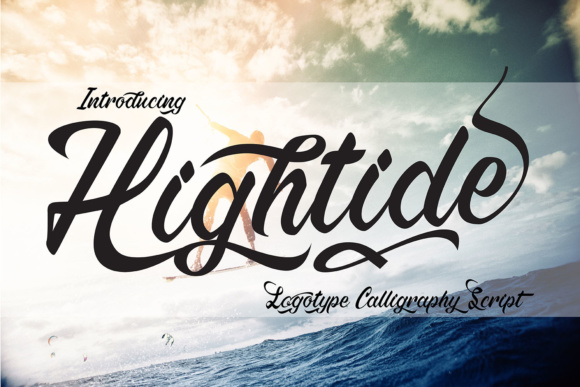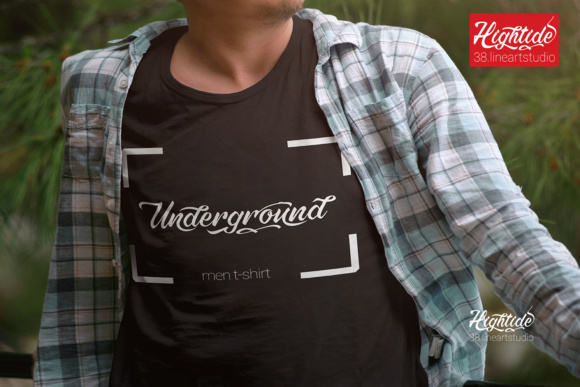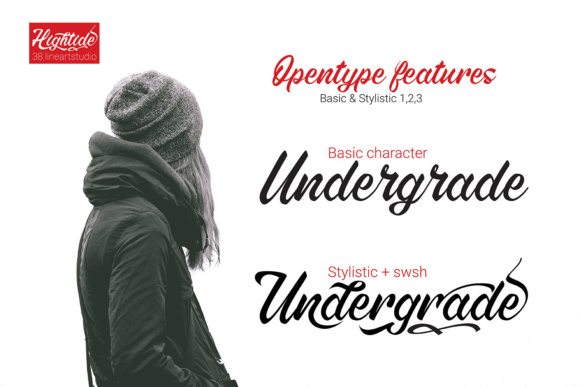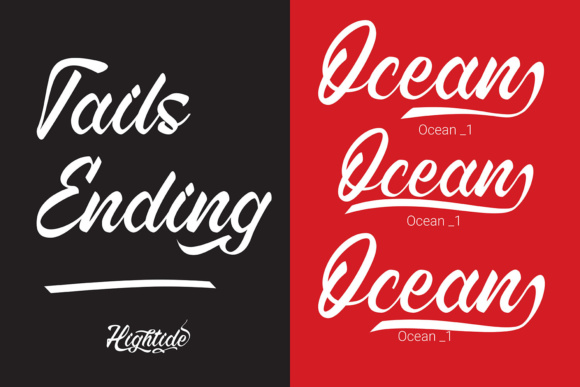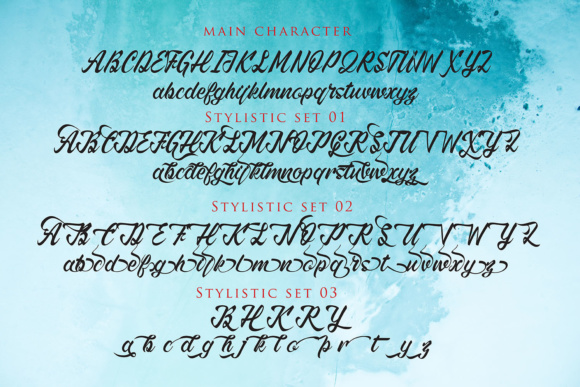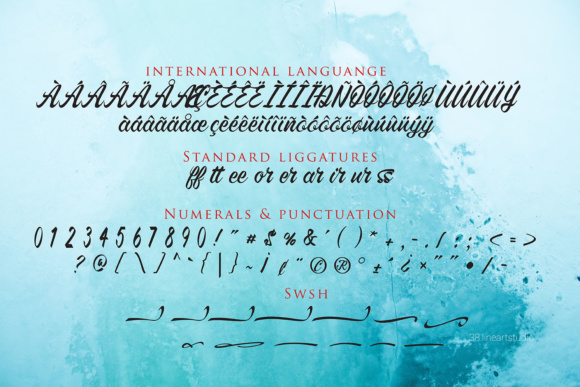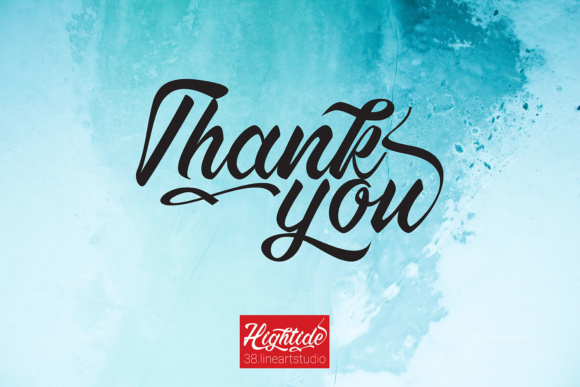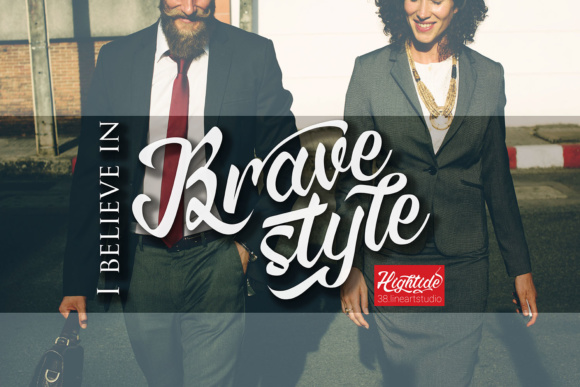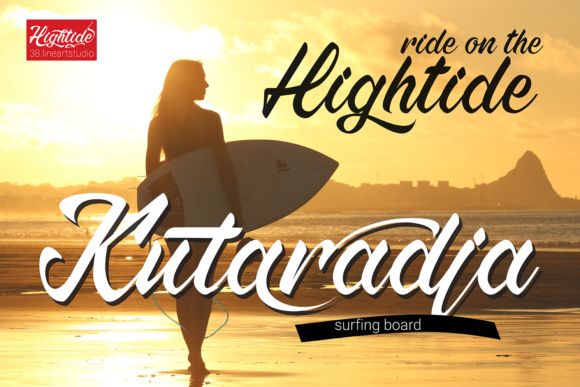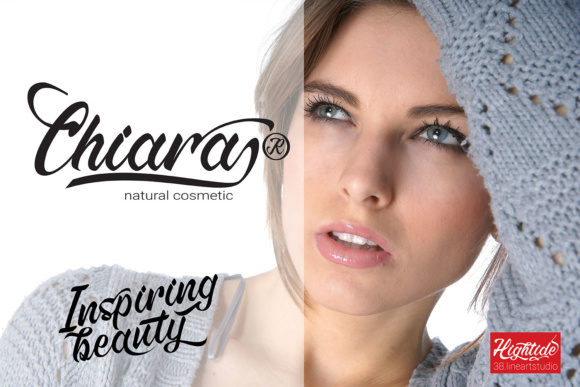
Hightide Font
About Hightide Font
Hightide is a beautiful yet casual calligraphy logotype font, perfect for giving your logo treatments a refined and retro appeal. This font is bold and swashy and can add some expression to your works.